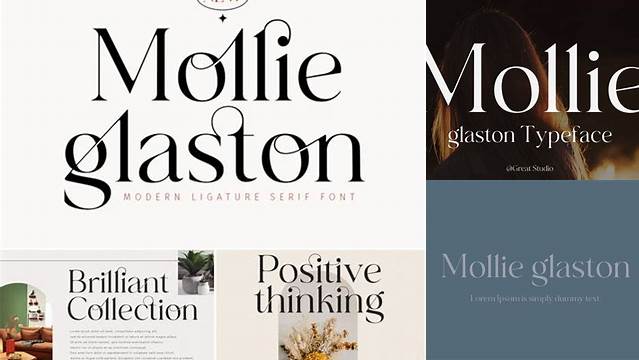
Hey guys! If you're looking for a super cool and versatile font, you've gotta check out Mollie Glaston! It's a real beauty, and the best part? You can get a mollie glaston free font download! Seriously, who doesn't love free stuff, right? This article is your ultimate guide to everything Mollie Glaston. We'll dive into where you can snag this fantastic font, how to use it, and some awesome design ideas to get your creative juices flowing. Get ready to revamp your designs with this sleek and modern typeface!
1. Unveiling Mollie Glaston: A Font for the Modern Era
Let's start with the basics. What exactly is Mollie Glaston? Well, it's a modern, elegant font that boasts a clean and sophisticated look. Its versatility makes it perfect for a wide range of projects, from branding and logos to website design and social media graphics. The font has a unique charm that can instantly elevate any design. With its carefully crafted letterforms, Mollie Glaston exudes a sense of professionalism and style that captures attention. It's the kind of font that makes your work look like you know what you're doing, even if you're just starting out! Seriously, it's like giving your designs a stylish makeover.
One of the key features of Mollie Glaston is its readability. It's designed to be easy on the eyes, which makes it ideal for both headlines and body text. You won't have to worry about your audience squinting to read your message. Furthermore, the font's clean lines and balanced proportions ensure that your text looks great at any size. Whether you're creating a business card or a billboard, Mollie Glaston maintains its visual appeal. Moreover, because it's a modern font, it's always in style. The design world is constantly evolving, but Mollie Glaston holds its own. It’s a timeless font that will continue to enhance your designs for years to come. So, you can use this font with confidence, knowing that your design will look fresh and trendy. The mollie glaston free font download will be your new best friend, trust me.